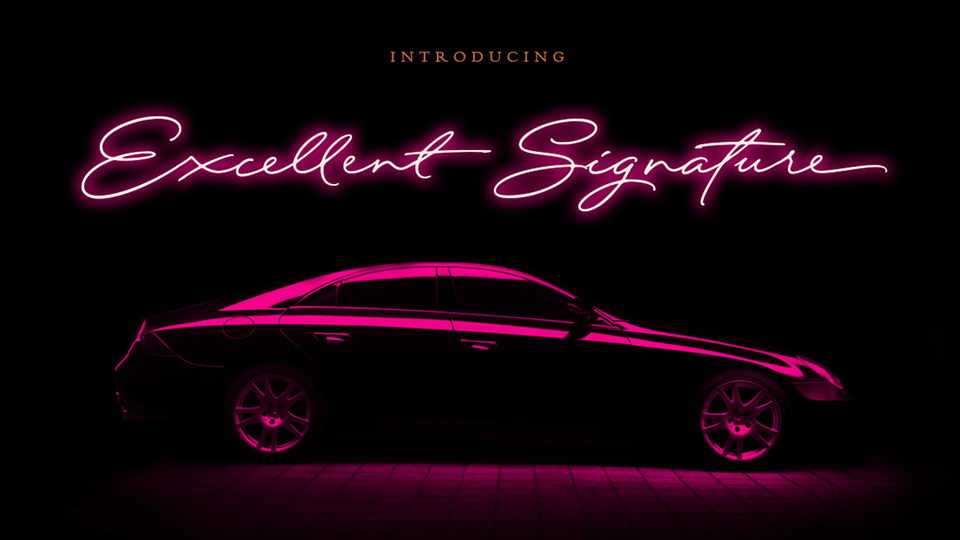
Download Excellent Signature font, an excellent typography that has to be a good looking, elegant and feel luxurious. And the most important thing is, this font will produce a good harmony when the letters are connected and paired each other.
Designer: Hendra Pratama